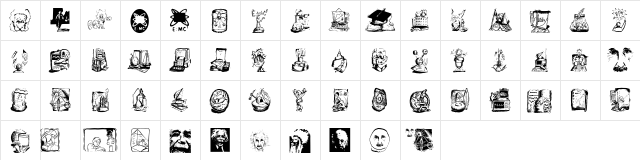
EinsteinsWorlds Regular
Design Context for EinsteinsWorlds Typeface
EinsteinsWorlds is a composed and adaptable typeface that performs quietly and consistently across a wide range of design contexts.